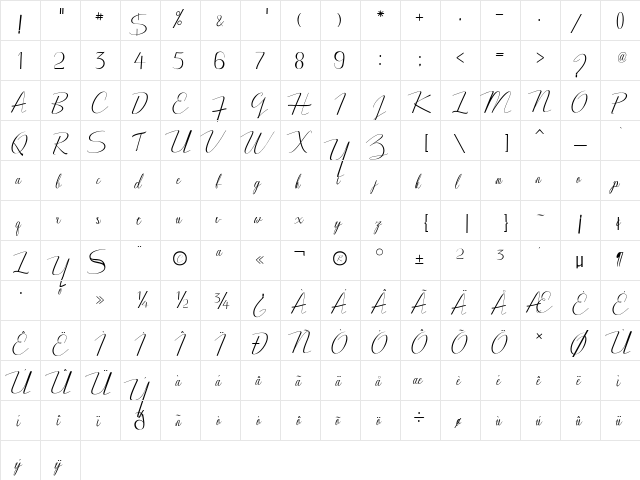
bagadang Regular
Design Context for bagadang Typeface
bagadang is a composed and adaptable typeface that performs quietly and consistently across a wide range of design contexts.